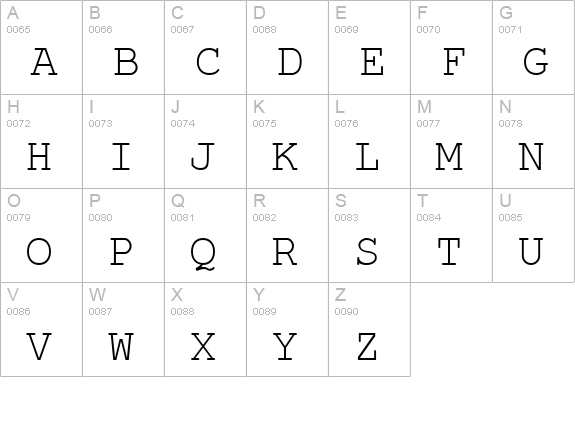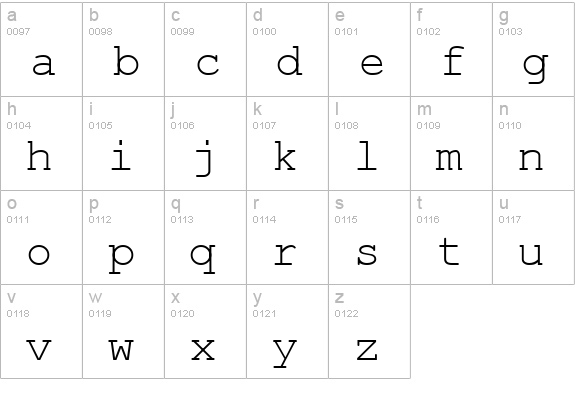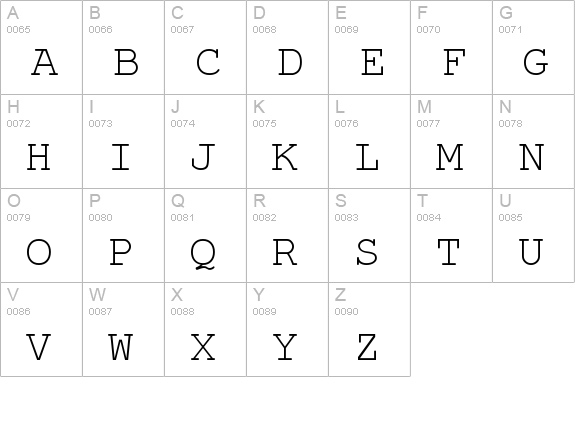
English-Russian Courier Font Details
English-Russian Courier font is a classic and versatile typeface that seamlessly combines the familiar Courier style with the elegance of the Russian language. Its clear and easily readable design makes it perfect for a wide range of applications, from digital content to printed materials. What sets this font apart is that it is available for free download at FontsMarket.com. You can enhance your projects with this high-quality font without any cost, making it a valuable addition to your design toolkit. Whether you need to create professional documents, eye-catching posters, or stylish branding materials, English-Russian Courier font offers the perfect balance of style and readability. Elevate your designs with this versatile font today and experience the power of seamless communication in both English and Russian.